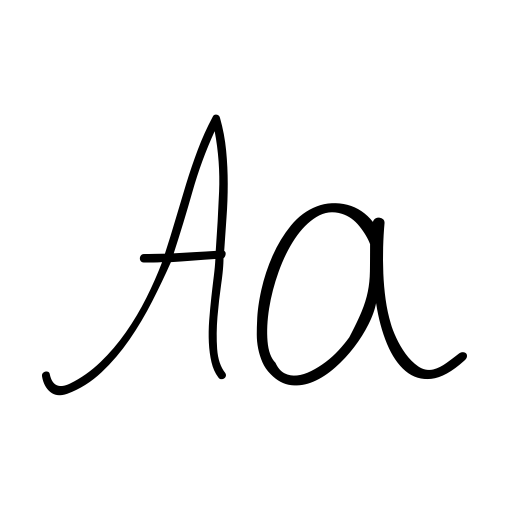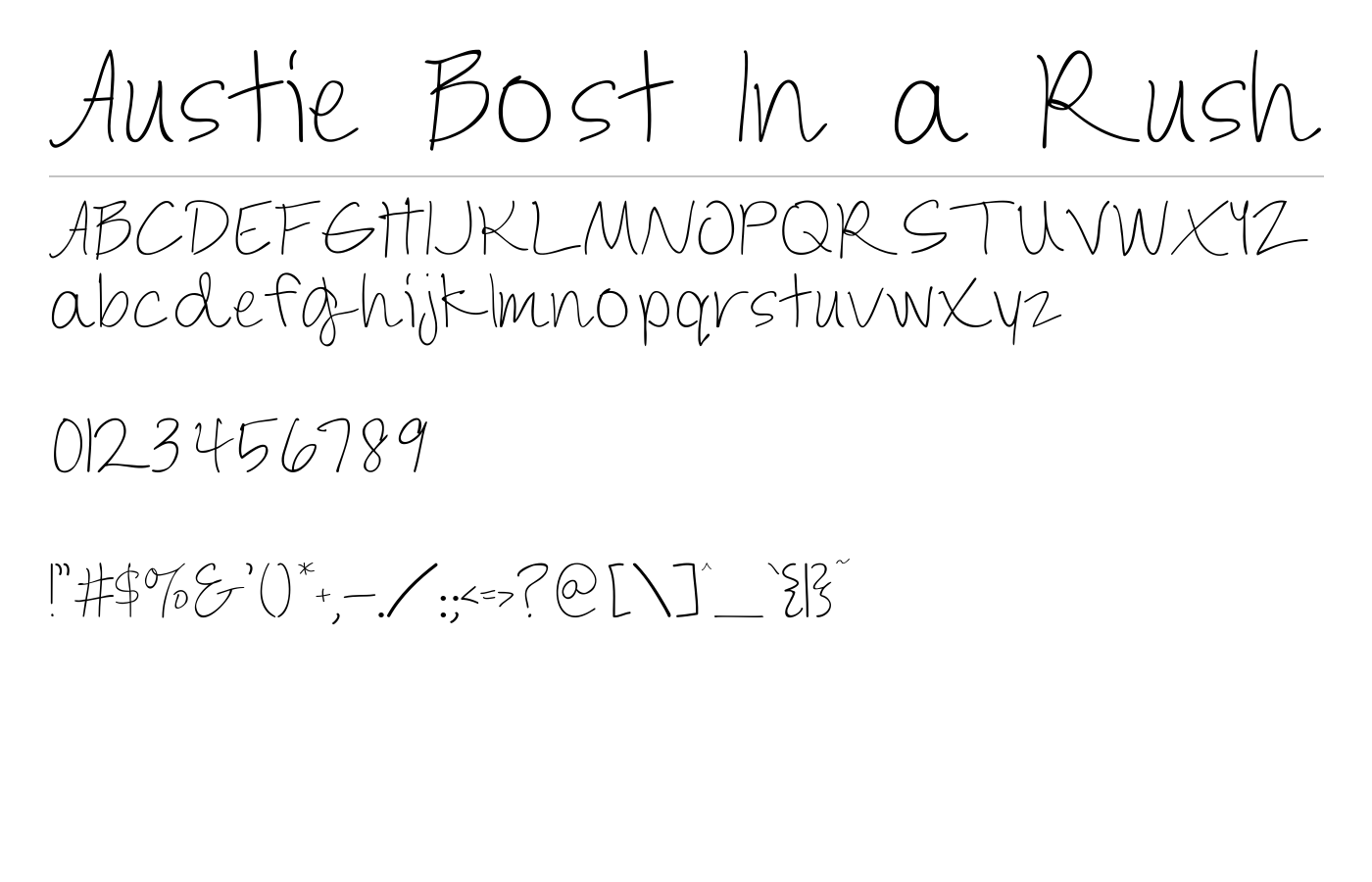
Austie Bost In a Rush is a whimsical, handwritten sans serif font with a light, airy feel and playful irregularity in its stroke. Its tall x-height, single-story characters, and informal letter shapes give it a casual, personal touch, making it perfect for creative projects, invitations, or branding that aims to feel friendly and approachable. This font works best in headlines and short text where its unique character can shine without losing readability.
Austie Bost In a Rush Font
About Austie Bost In a Rush Font
| Font family | Austie Bost In a Rush Font |
| Designer | Austin Owens |